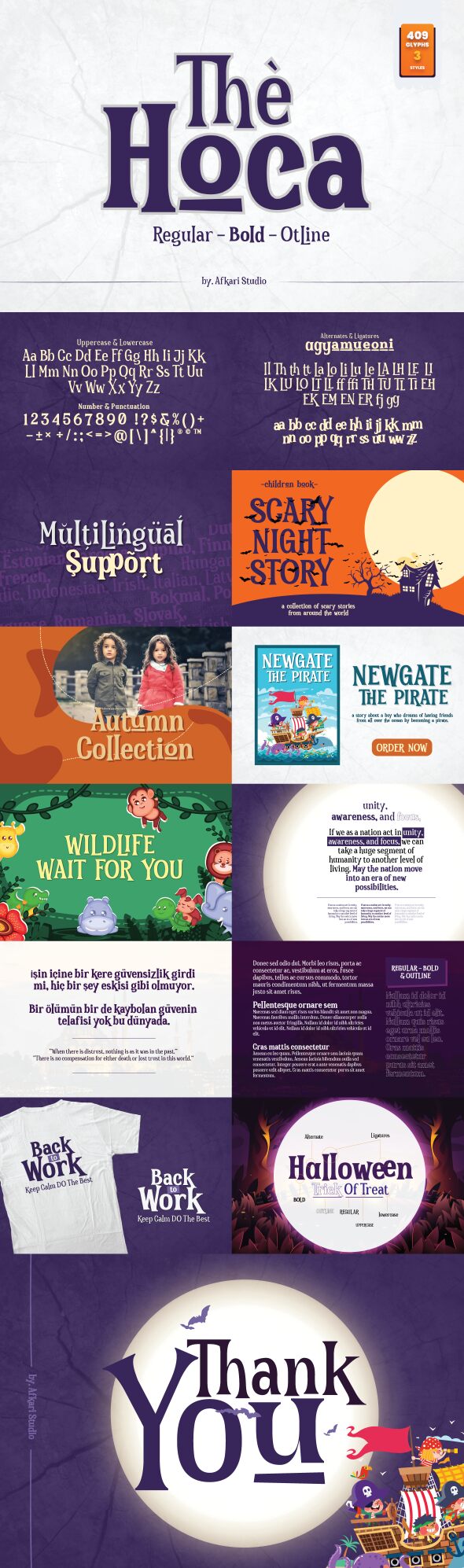
The Hoca Bold
The Hoca Bold, a creation by Afkari Studio, exudes an alluring sense of holiday whimsy and Halloween enchantment. This condensed font's bold, angular strokes and spooky aesthetic captivate the eye, inviting exploration and intrigue. Its unique character forms and striking visual presence make it a standout choice for those seeking to infuse their designs with a touch of festive mystique.
The Hoca Bold's versatility shines through, making it a versatile option for a wide range of design applications. Its condensed width and distinctive style lend themselves particularly well to eye-catching display text, invitations, and promotional materials for Halloween, Día de los Muertos, and other holiday-themed projects. Effortlessly blending playfulness and sophistication, this font is sure to elevate the visual impact of any design.